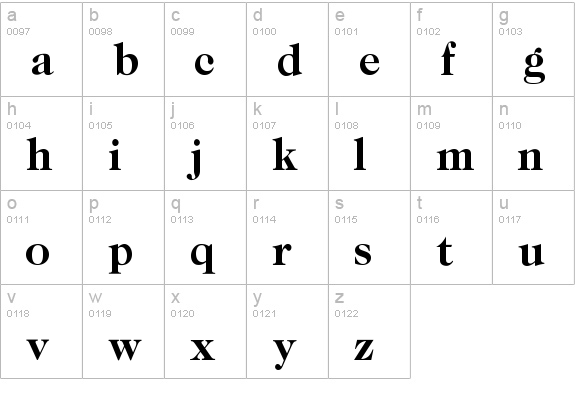
CaslonBold is a classic and timeless font that exudes elegance and sophistication. With its bold weight, it commands attention and adds a touch of authority to any design project. The strong and confident strokes of CaslonBold make it perfect for headlines, titles, and other prominent text elements. This versatile font can be used in a variety of design applications, from print materials to digital media. Its clean and legible design ensures that your message will be clearly communicated to your audience. CaslonBold strikes the perfect balance between traditional and modern, making it a versatile choice for any project. Best of all, CaslonBold is available for free download at FontsMarket.com. Whether you are a professional designer or a hobbyist, you can access this premium font without any cost. Enhance your designs with the sophistication and style of CaslonBold today!